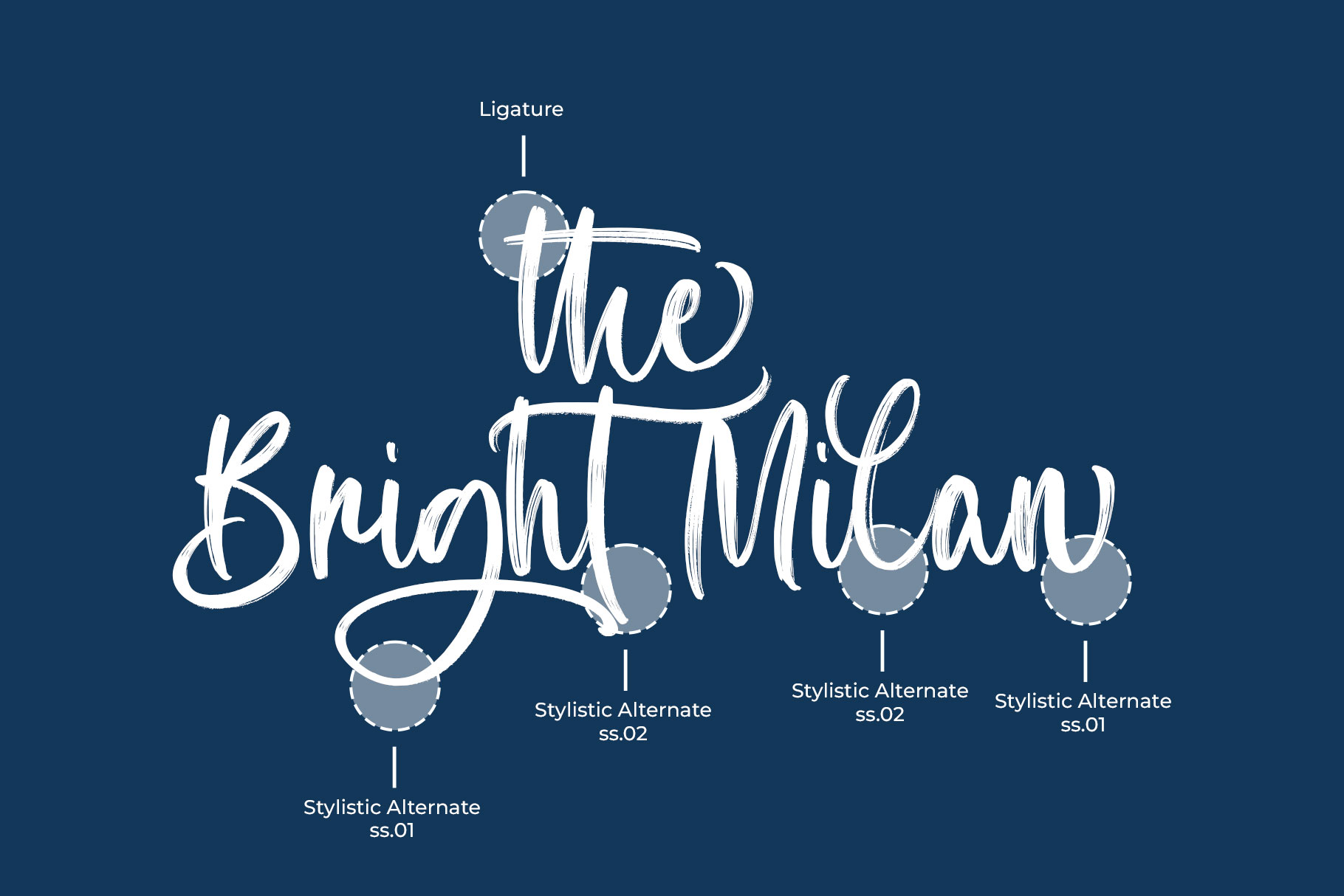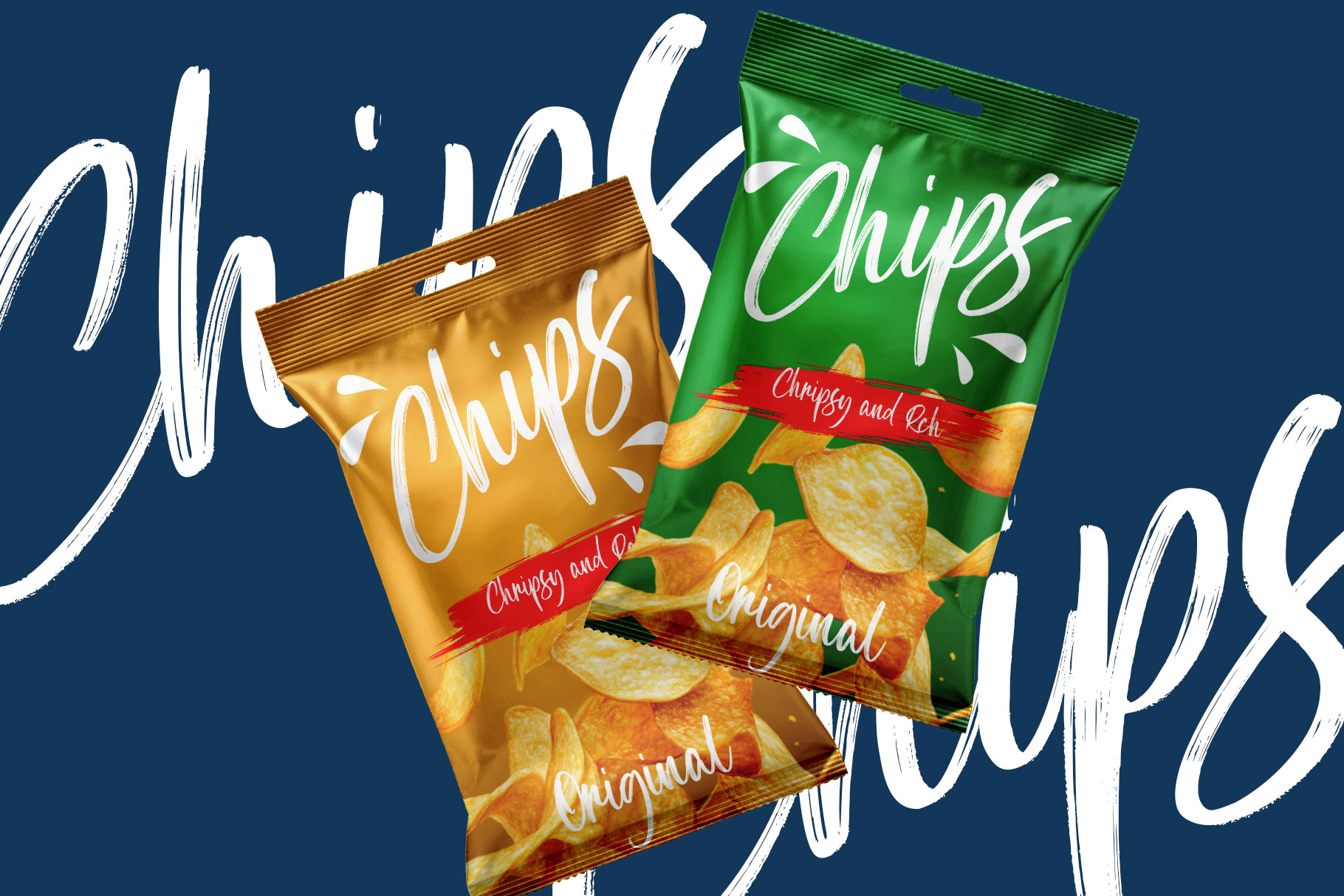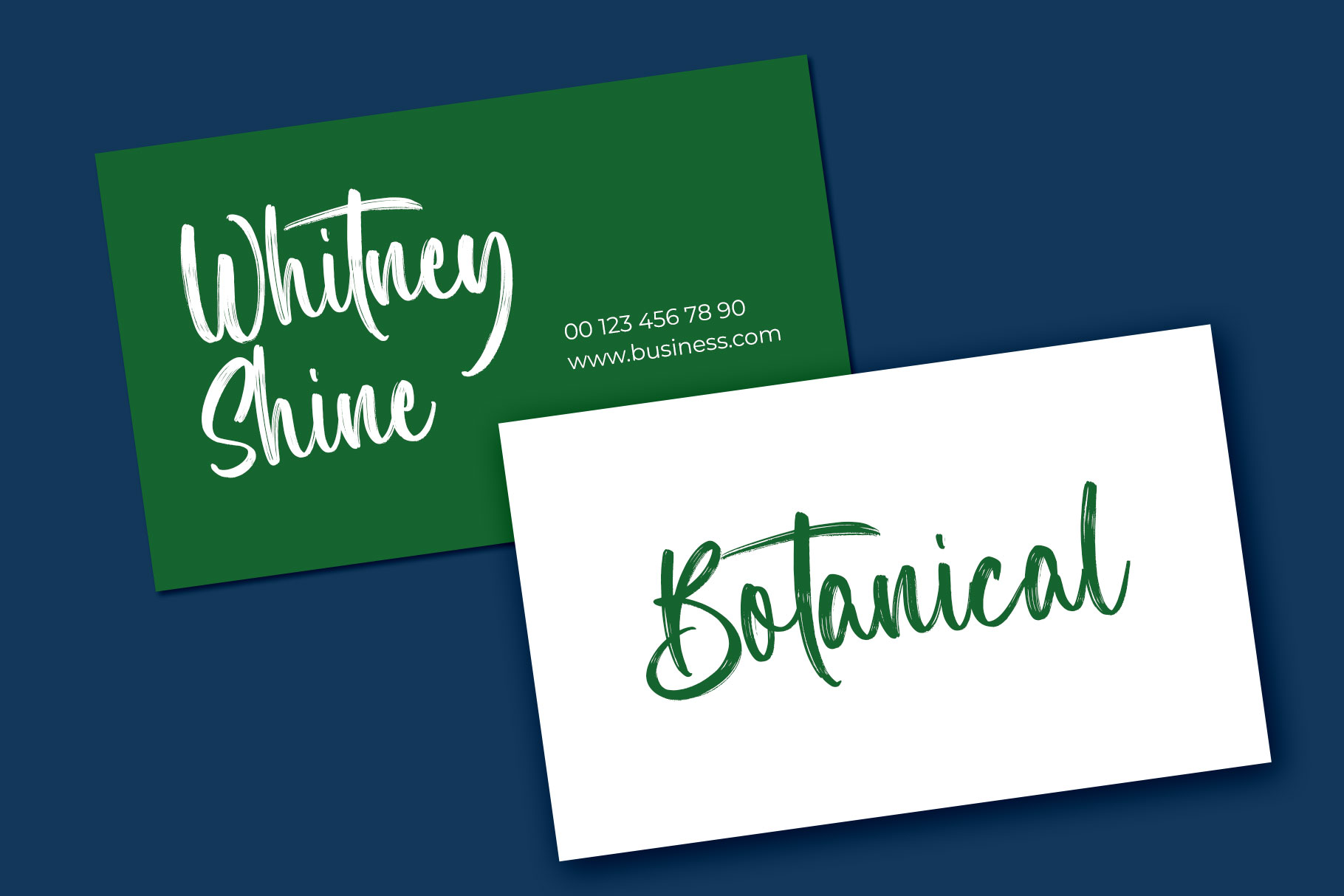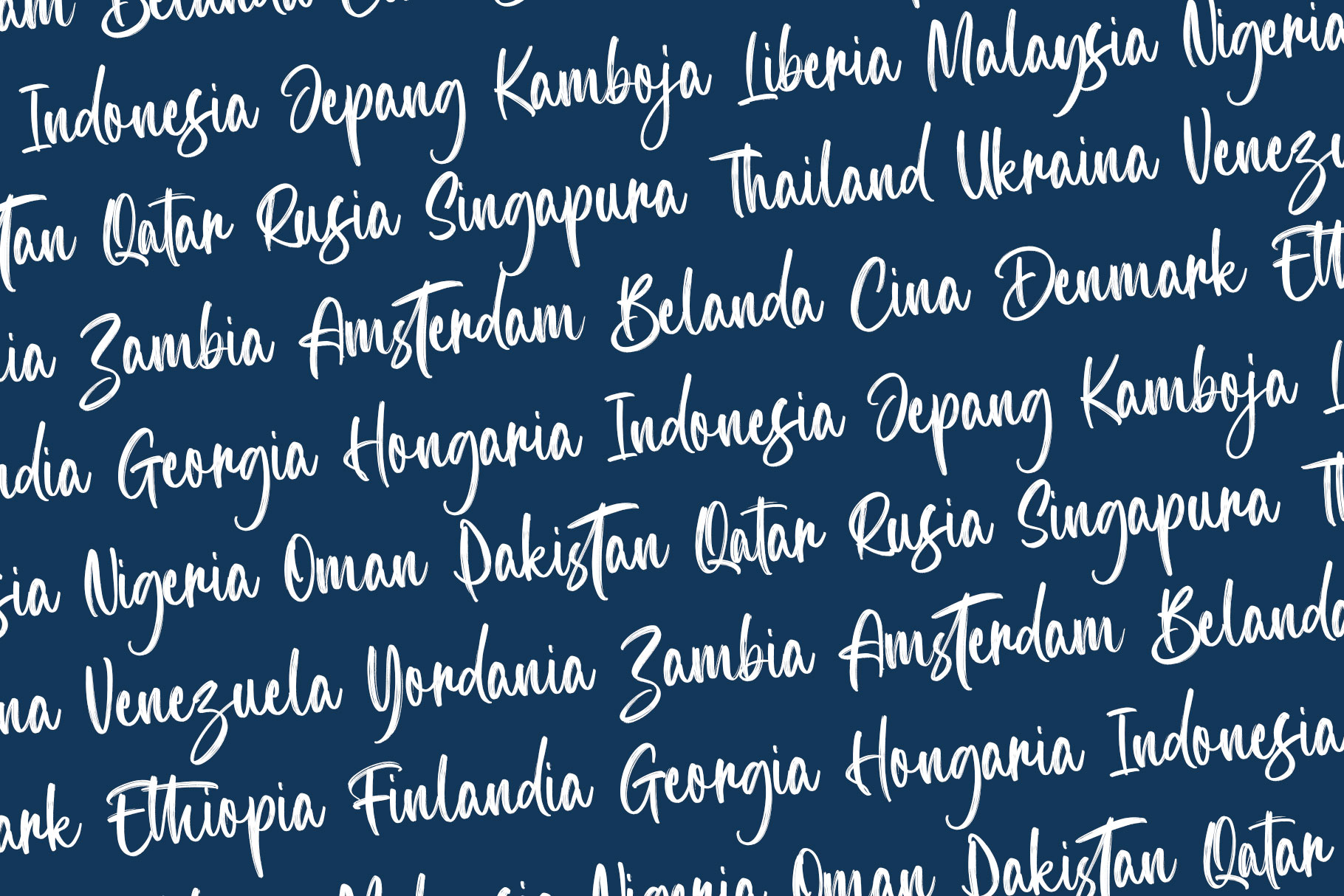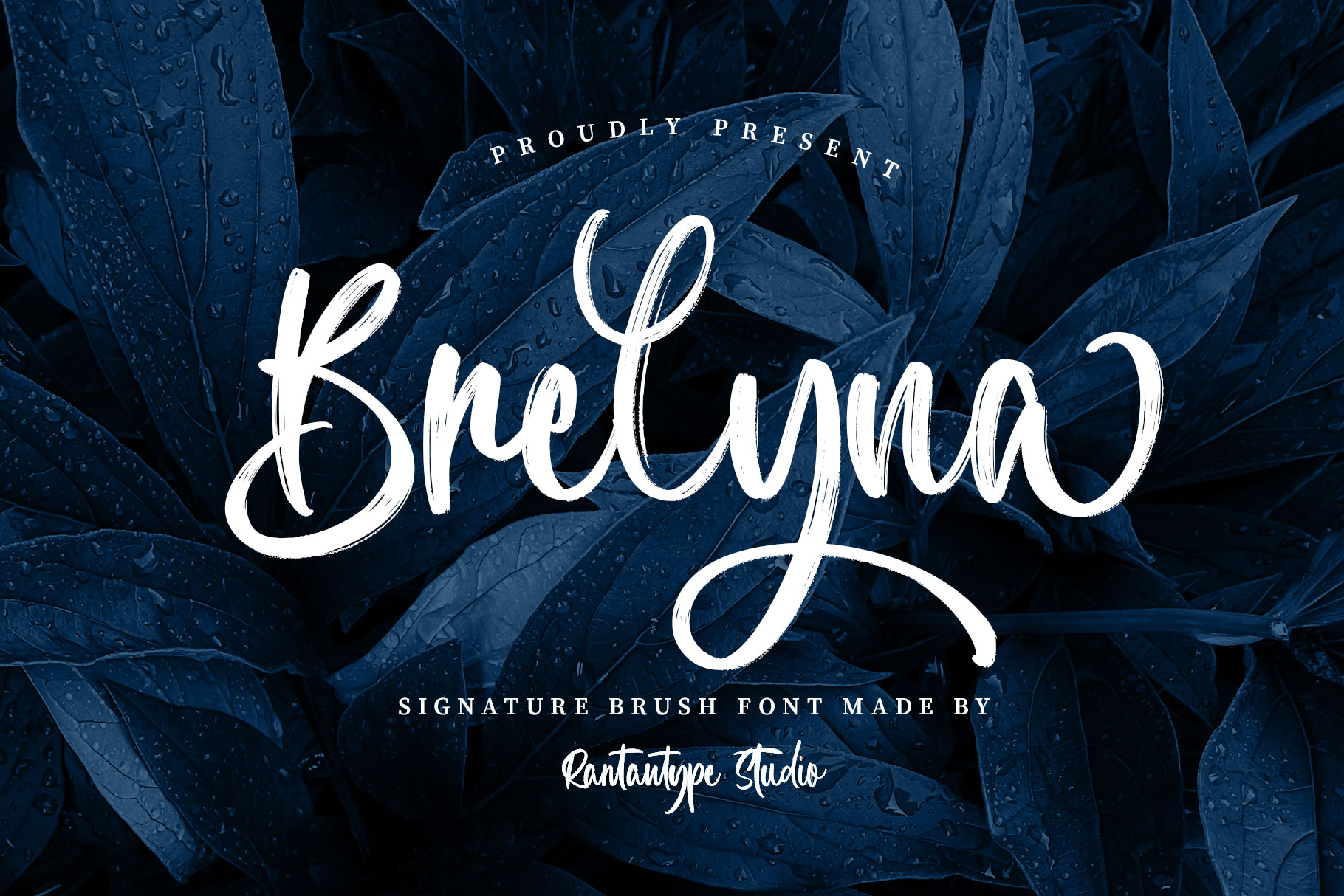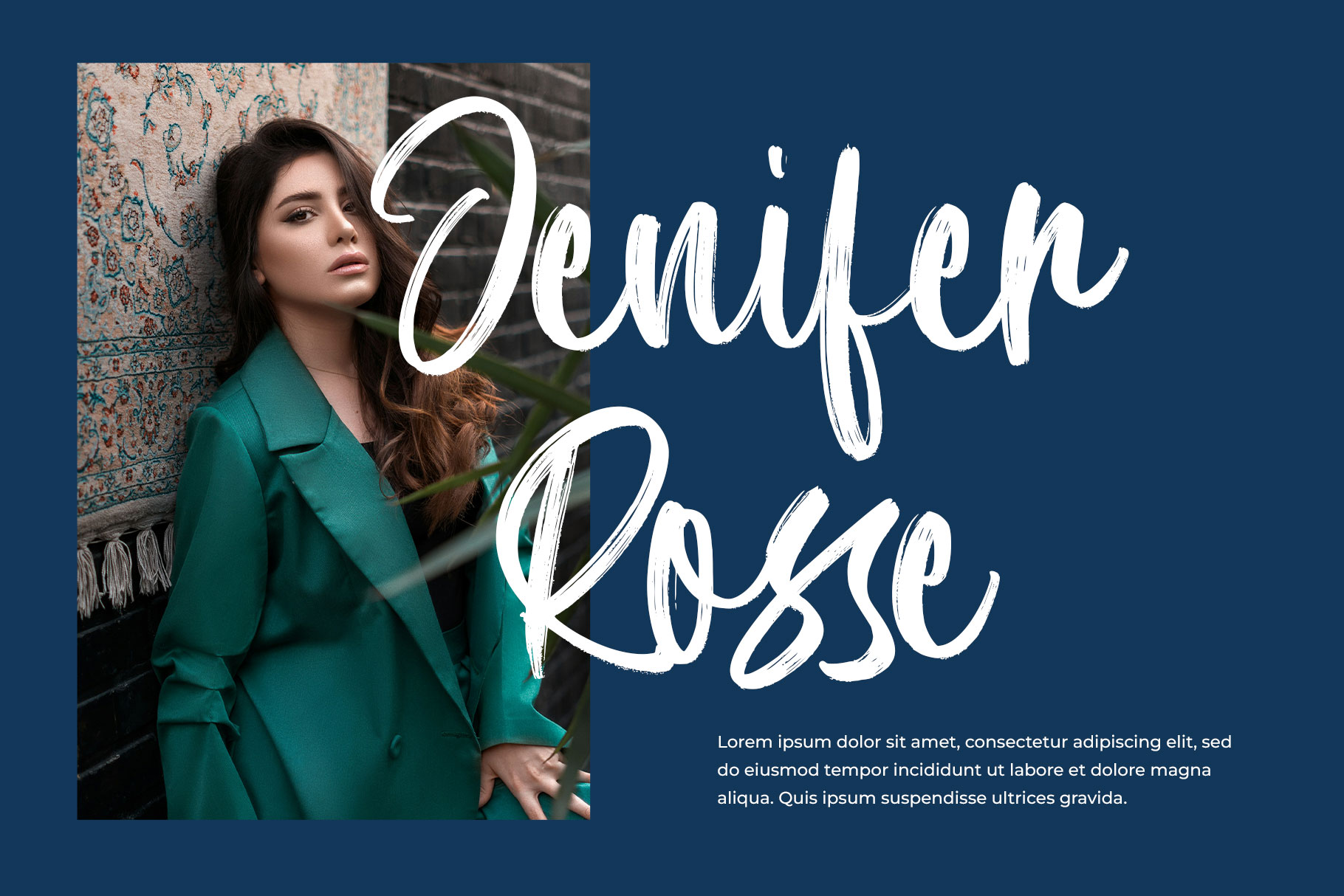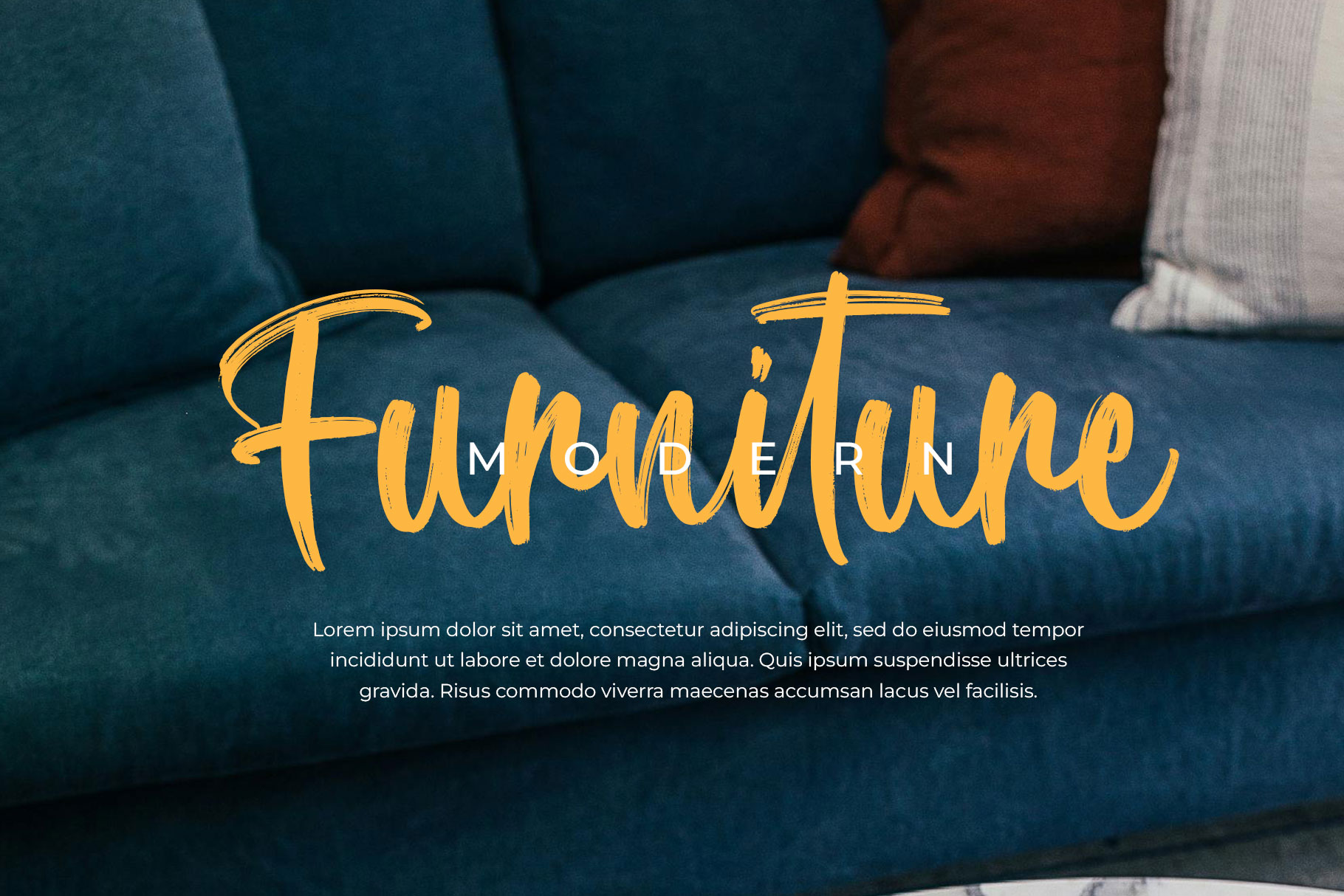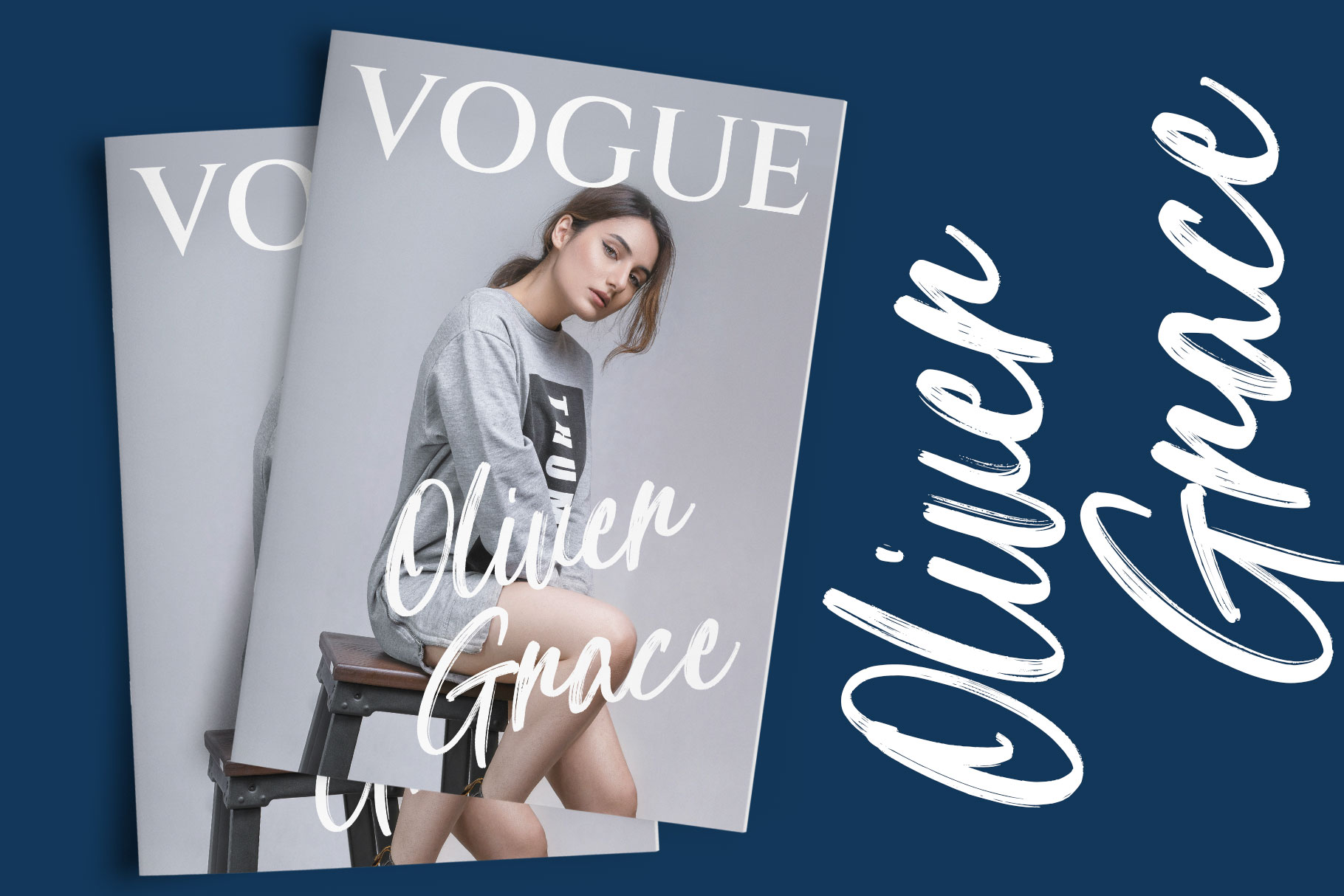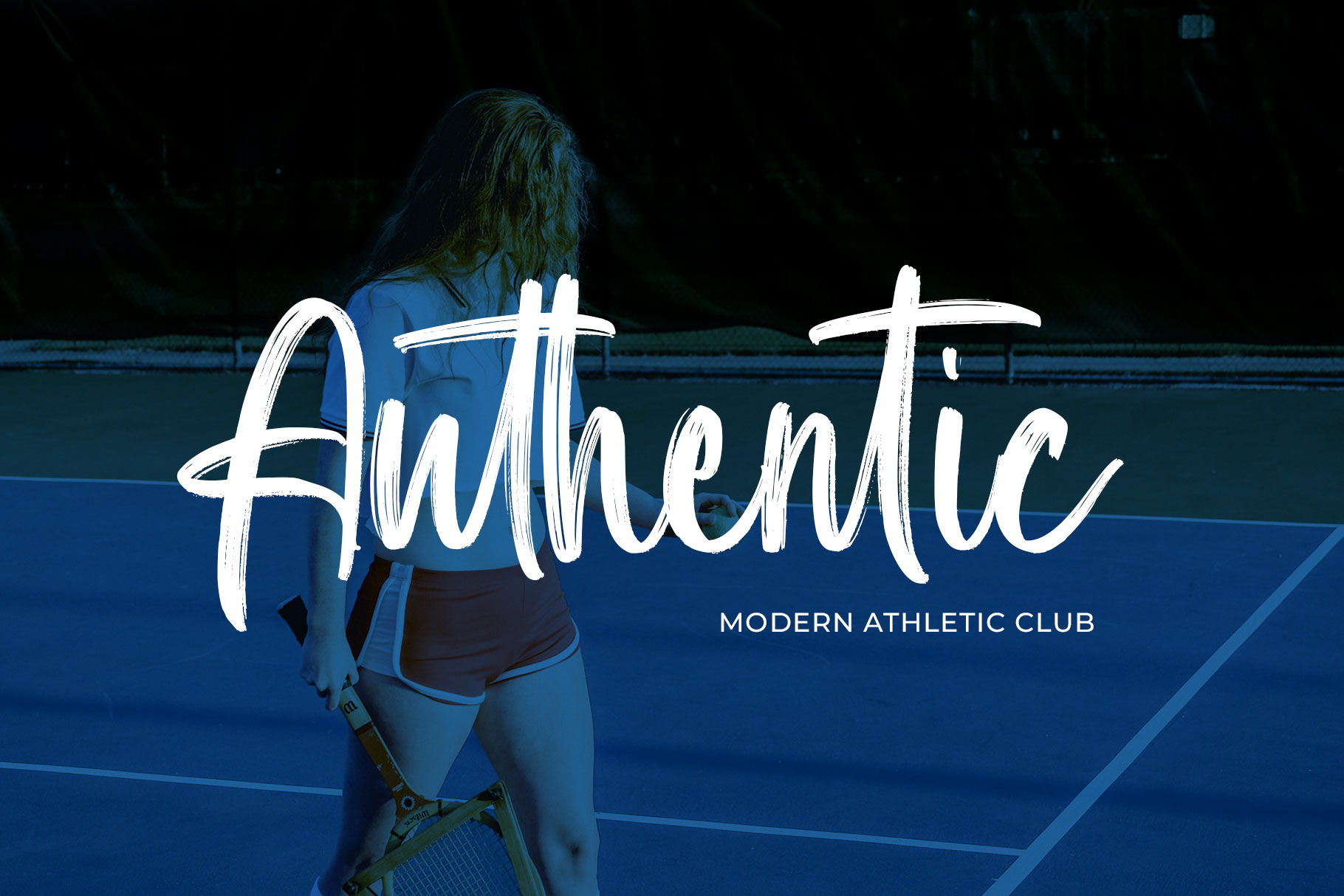
Brelyna Signature Brush Font
Make your creative project with brelyna signature brush font. Brelyna bring authentic brush to create harmony of typography. Brelyna is a professional choice for any creative endeavor, creating, modern, chic, lifestyle design such as logotype, title, cover, branding, invitations, wedding designs, display and magazine, social media posts, advertisements, printed quotes, product packaging, corporate brand, product designs, labels, photography, watermarks, special events and any other project with handwritten touch.